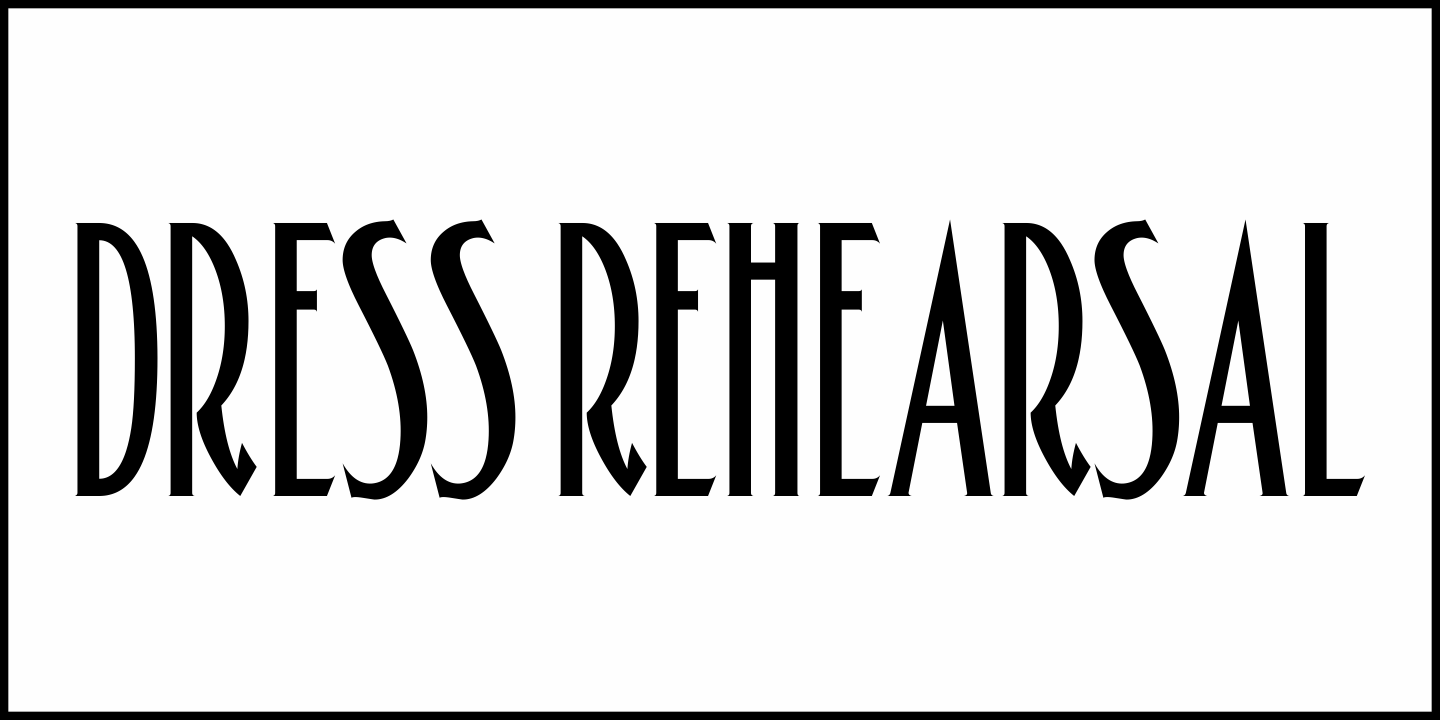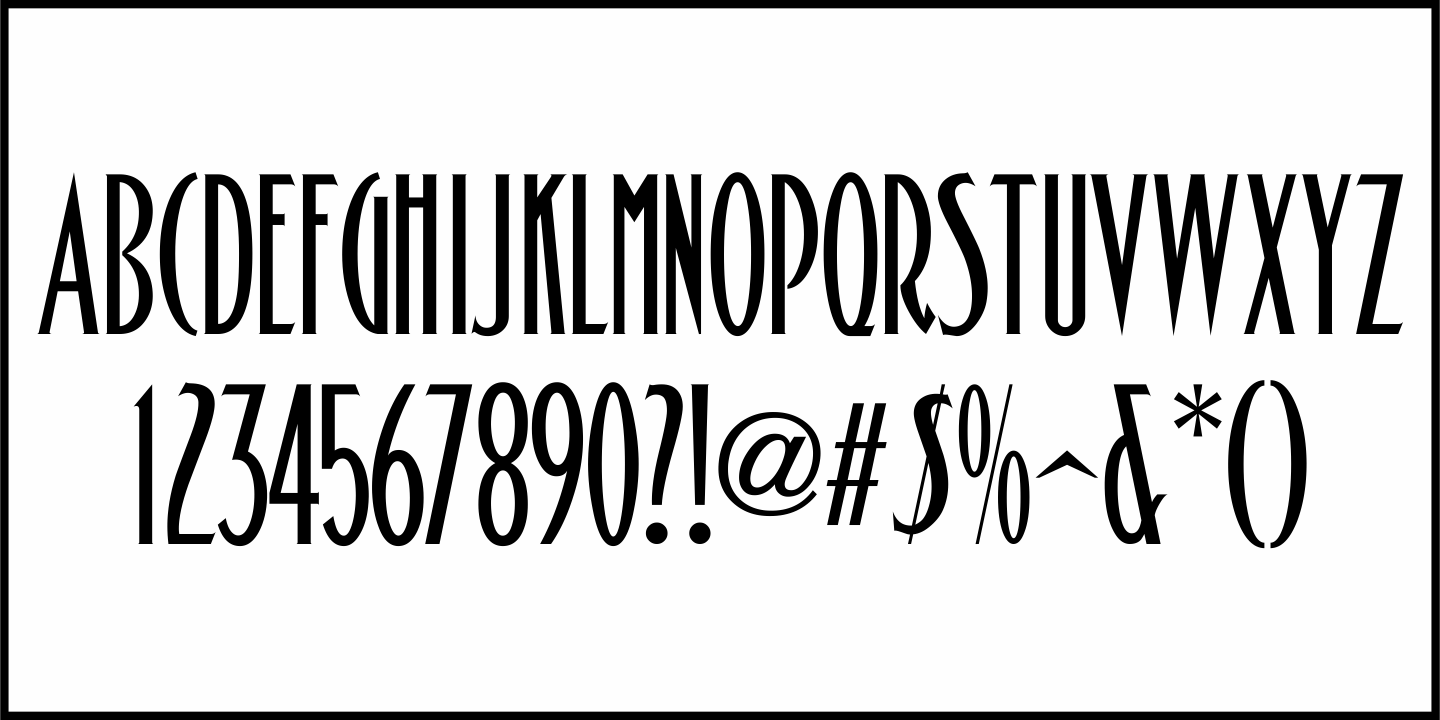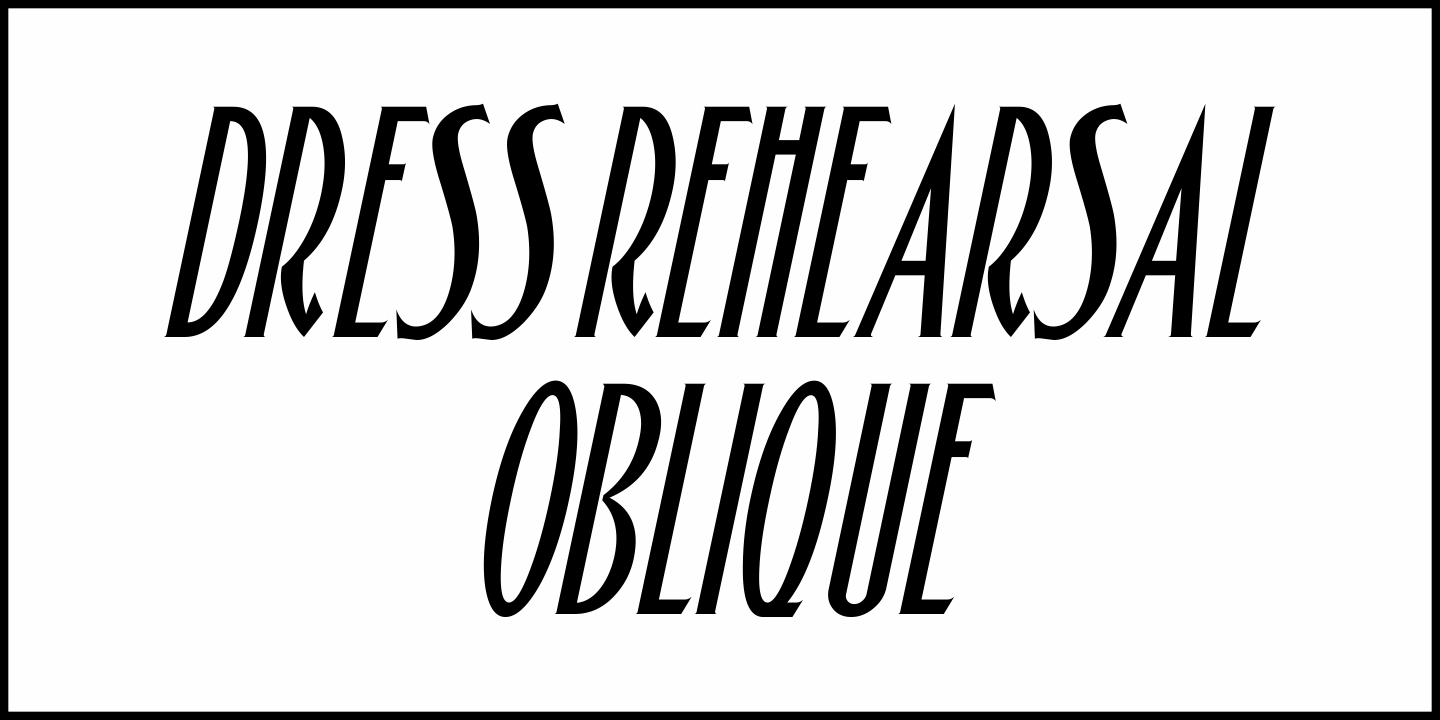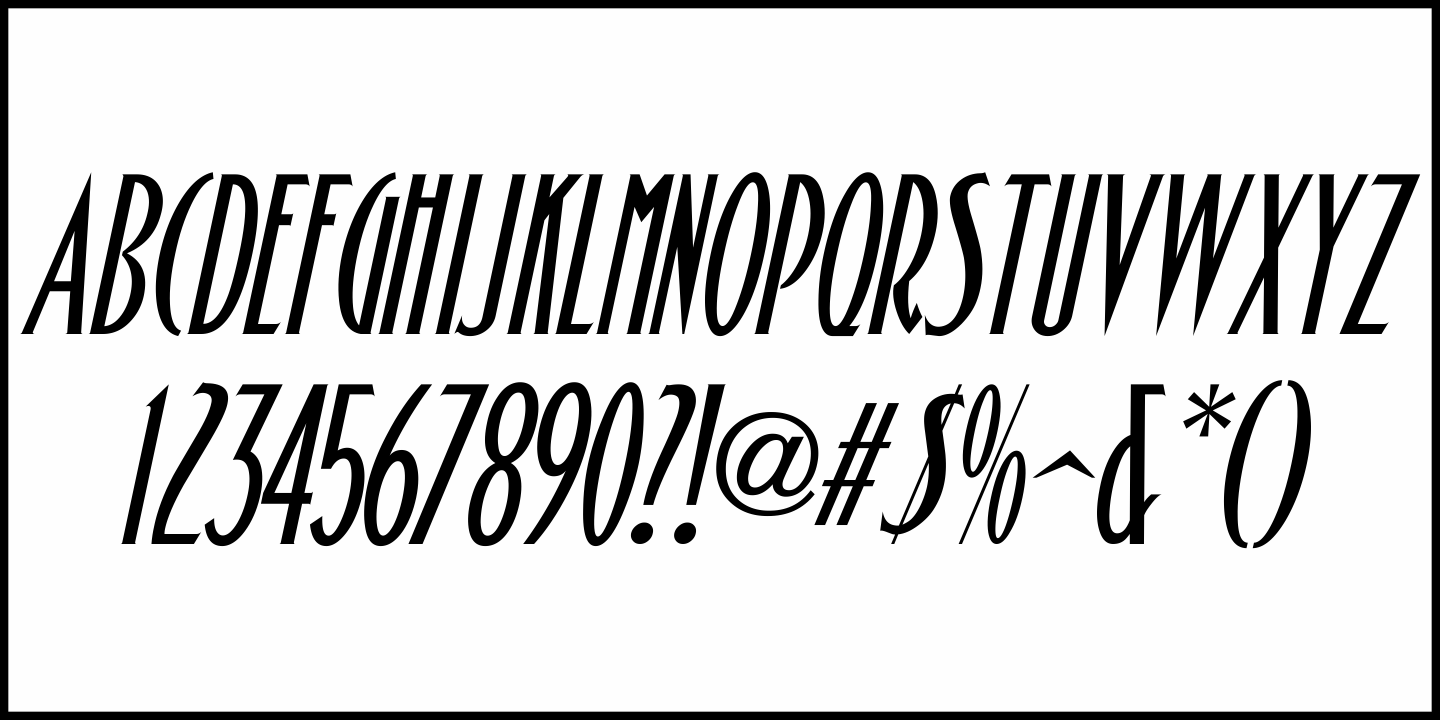
Dress Rehearsal
In a career spanning the early 1900s through 1940, George M. Cohan wrote and produced over 50 plays, 300 songs and was also an actor, singer and dancer.
Many of his works honored his Irish roots, and the cover of one piece of sheet music called 'The Irish American” (1905) had its title hand lettered in a condensed Art Nouveau type design with tiny spurred serifs.
This is now available digitally as Dress Rehearsal JNL, in both regular and oblique versions.